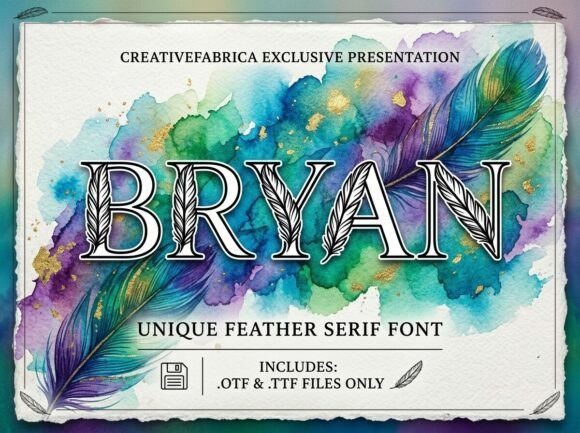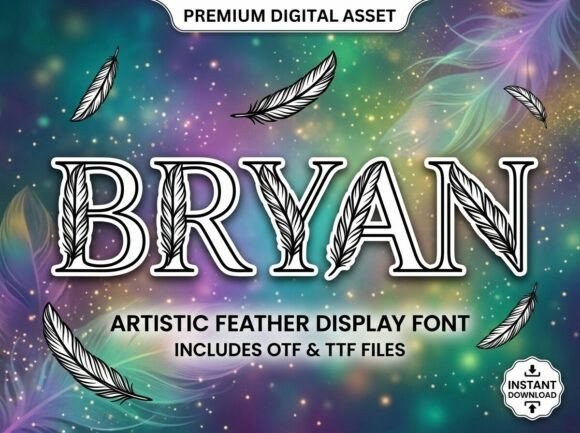
Bryan Font: Elevate Your Designs with a Stunning Decorative Display Font
Are you tired of using the same old fonts in your designs? Look no further than the Bryan Font, a stunning decorative display font that’s sure to turn heads. With its unique artistic elements and strong visual personality, this font is perfect for creators who want to break away from the ordinary and make a statement.
What Makes Bryan Font So Special?
The Bryan Font is a versatile decorative font that’s designed to be the center of attention. Its unique artistic elements and strong visual personality make it perfect for a variety of design projects, from bold headlines and artistic logos to creative packaging. Whether you’re a designer, craftsperson, or DIY enthusiast, this font is sure to elevate your work and give it a professional, polished finish.
Key Features of Bryan Font
- Unique Artistic Elements: The Bryan Font features unique artistic elements that set it apart from other fonts. Its decorative flourishes and intricate details make it perfect for designs that require a high level of visual sophistication.
- Strong Visual Personality: This font has a strong visual personality that’s sure to make a statement. Its bold, eye-catching design makes it perfect for headlines, logos, and other design elements that need to stand out.
- Versatility: The Bryan Font is versatile enough for use in a variety of design projects, from bold headlines and artistic logos to creative packaging.
- Professional and Polished Finish: Despite its decorative nature, the Bryan Font maintains a professional and polished finish that’s perfect for designs that require a high level of sophistication.
How to Use Bryan Font in Your Designs
The Bryan Font is perfect for a variety of design projects, including:
- Headlines and Titles: Use the Bryan Font to create bold, eye-catching headlines and titles that are sure to grab attention.
- Logos and Branding: The Bryan Font is perfect for creating unique and memorable logos and branding elements that reflect your company’s personality and style.
- Packaging and Product Design: Use the Bryan Font to add a touch of elegance and sophistication to your packaging and product designs.
- Art and Illustration: The Bryan Font is also perfect for use in art and illustration projects, where its unique artistic elements and strong visual personality can really shine.
Why Choose Bryan Font?
There are many reasons why you should choose the Bryan Font for your next design project. Here are just a few:
- Unique and Eye-Catching: The Bryan Font is a unique and eye-catching font that’s sure to turn heads.
- Versatile: This font is versatile enough for use in a variety of design projects, from bold headlines and artistic logos to creative packaging.
- Professional and Polished Finish: The Bryan Font maintains a professional and polished finish that’s perfect for designs that require a high level of sophistication.
In conclusion, the Bryan Font is a stunning decorative display font that’s perfect for creators who want to break away from the ordinary and make a statement. With its unique artistic elements, strong visual personality, and versatility, this font is sure to elevate your designs and give them a professional, polished finish.